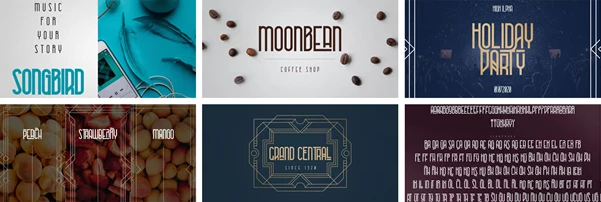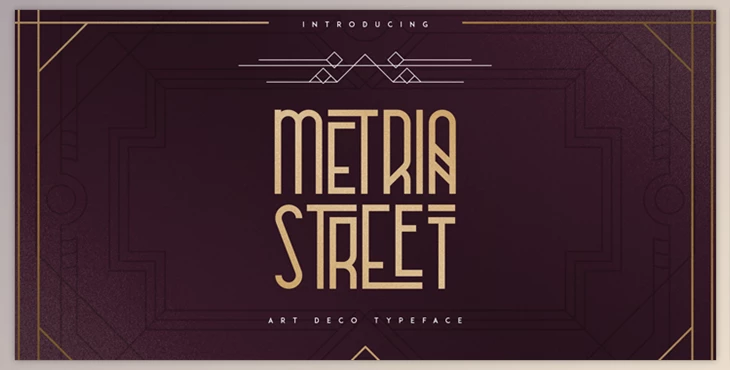
Metria Street is a bold, Art Deco typeface with 4 weights, ligature glyphs alternates, and support for multilingual languages. It's a flexible typeface that is great for both small and large sizes.
Metria Street is ideal for home-ware branding, brand designs, packaging for products magazine headers, or as a simple text overlay on every background picture.
- Uppercase, numerals, punctuation, and Symbol
- Light
- Regular
- Bold
- Black
- Alternate Glyphs
- Ligatures
- Multilingual support